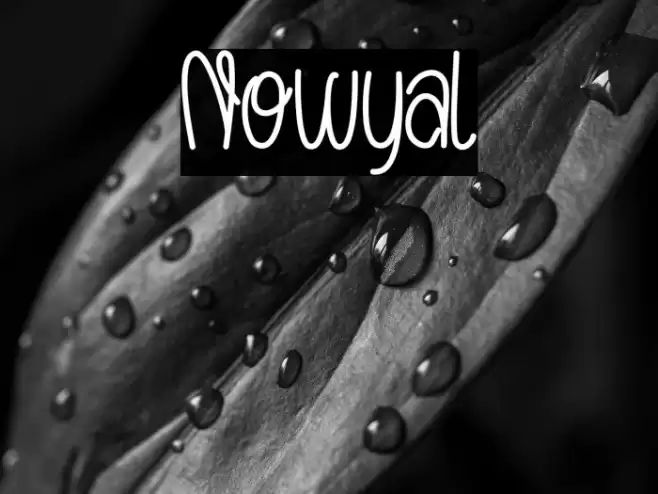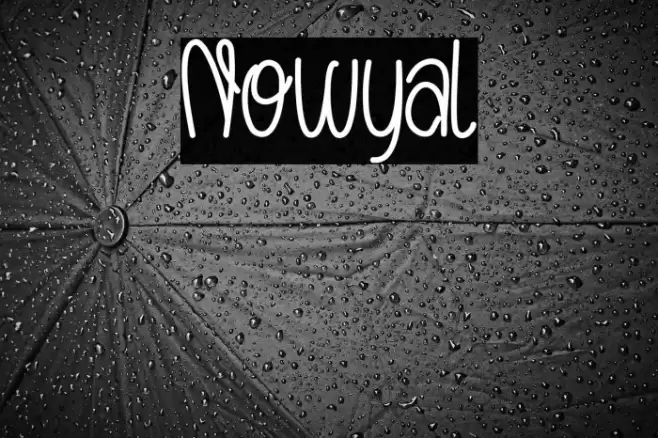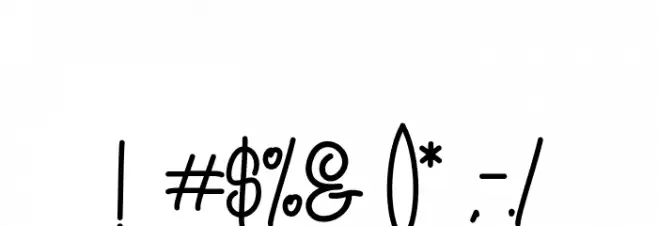
Nowyal Font
Nowyal Description
This font features a playful and whimsical style with a handwritten appearance. The letters are characterized by their flowing, cursive-like strokes, which give them a lively and dynamic feel. The uppercase letters have a distinct loop and curve, adding to the font's charm and personality. The lowercase letters maintain a consistent style, with smooth connections between characters. The numbers and special characters are designed to match the overall aesthetic, ensuring a cohesive look across all text. This font's unique style makes it suitable for creative and informal projects.
A playful, handwritten-style font with flowing, cursive-like strokes from Regular fonts.
- Proposed Projects: Ideal for greeting cards, invitations, children's books, and playful branding projects.
- Overall Style: Playful
- Use Case: Headlines, Logos, Invitations